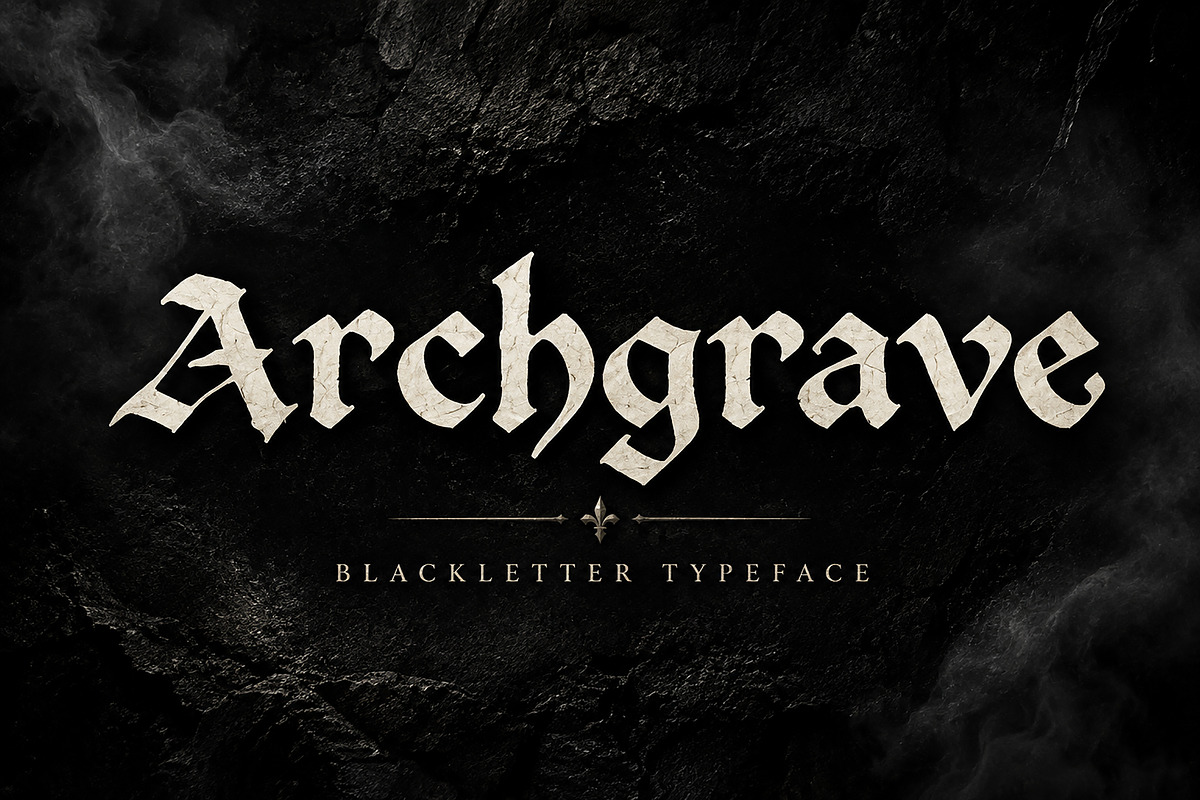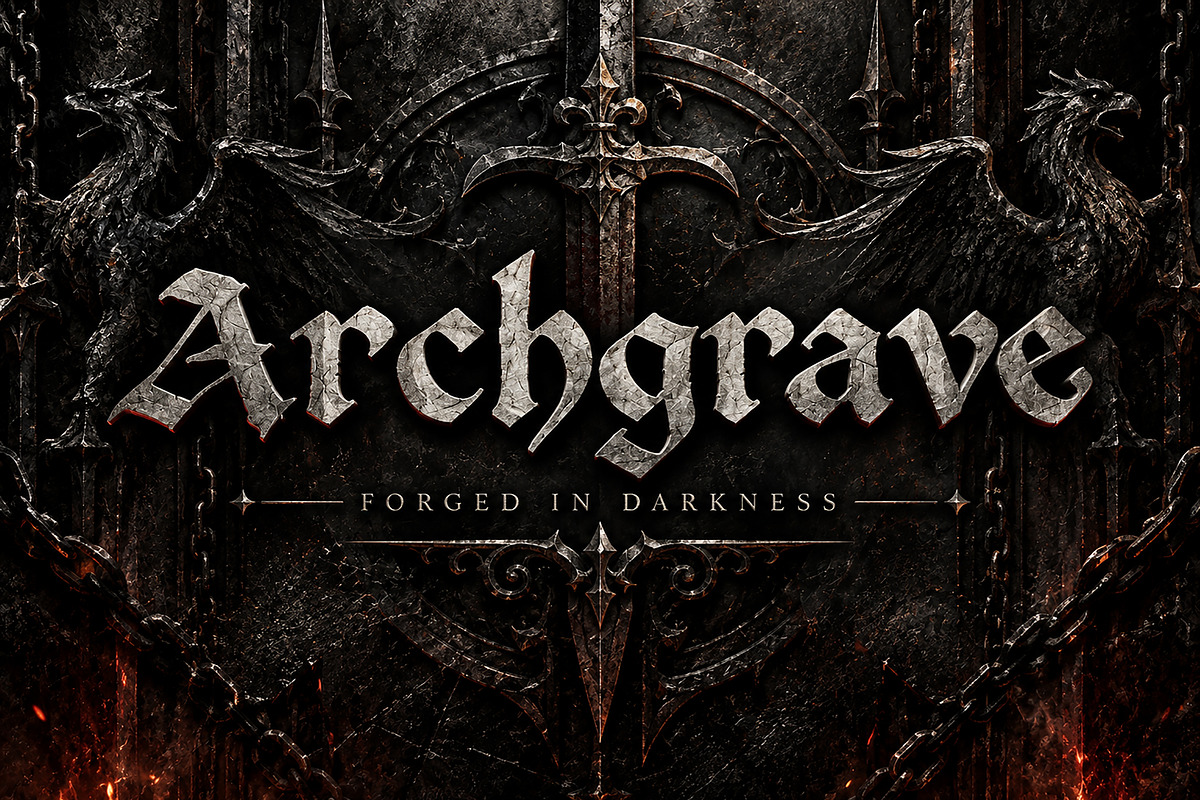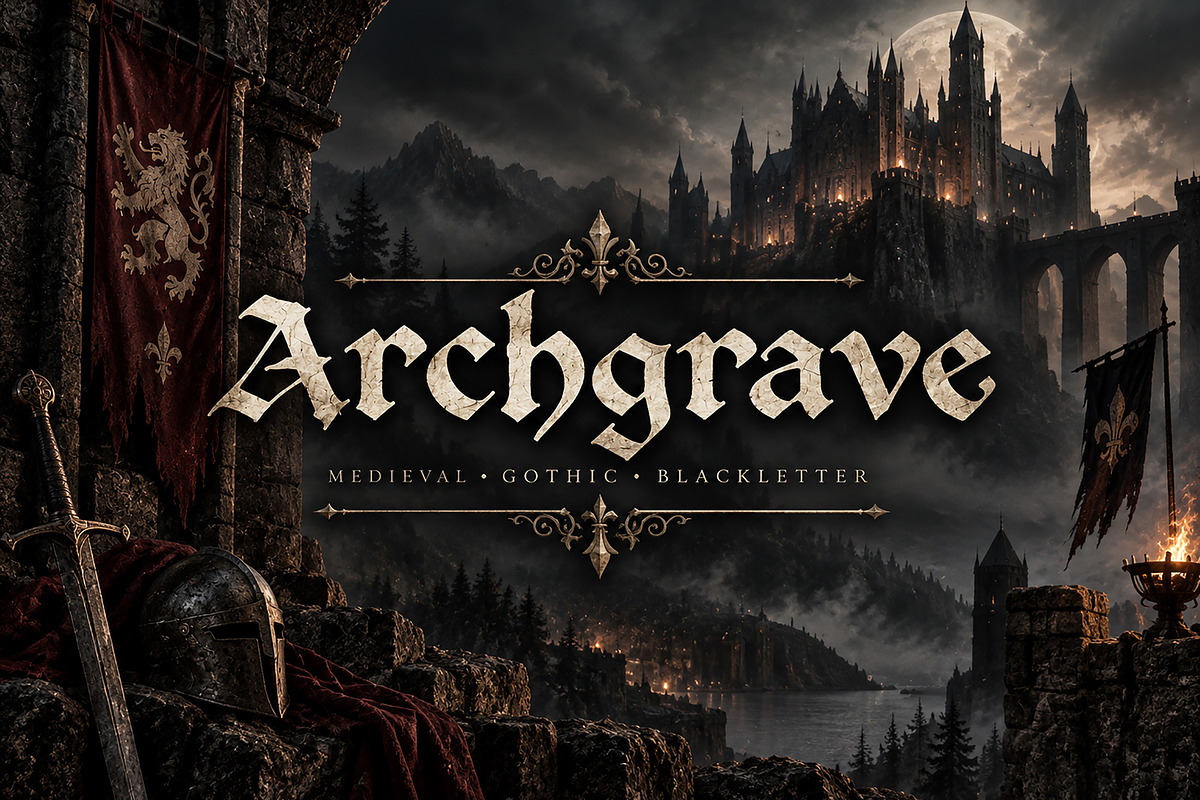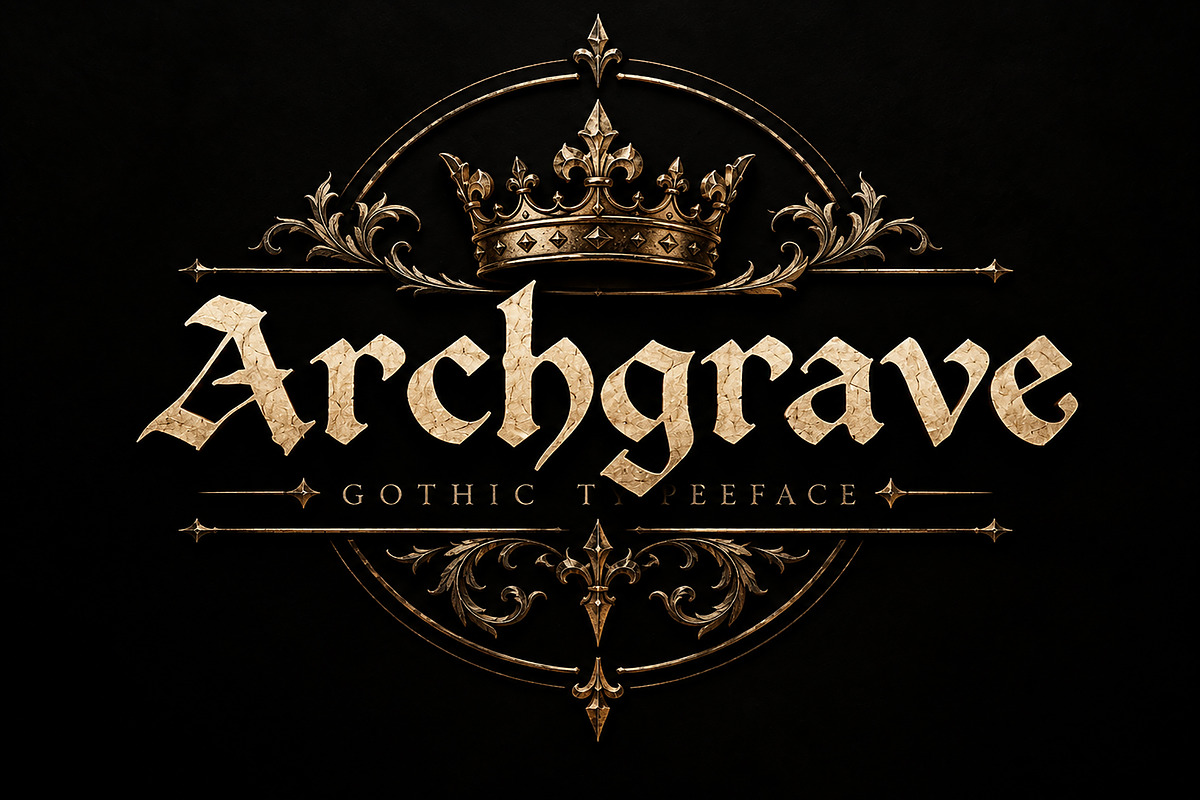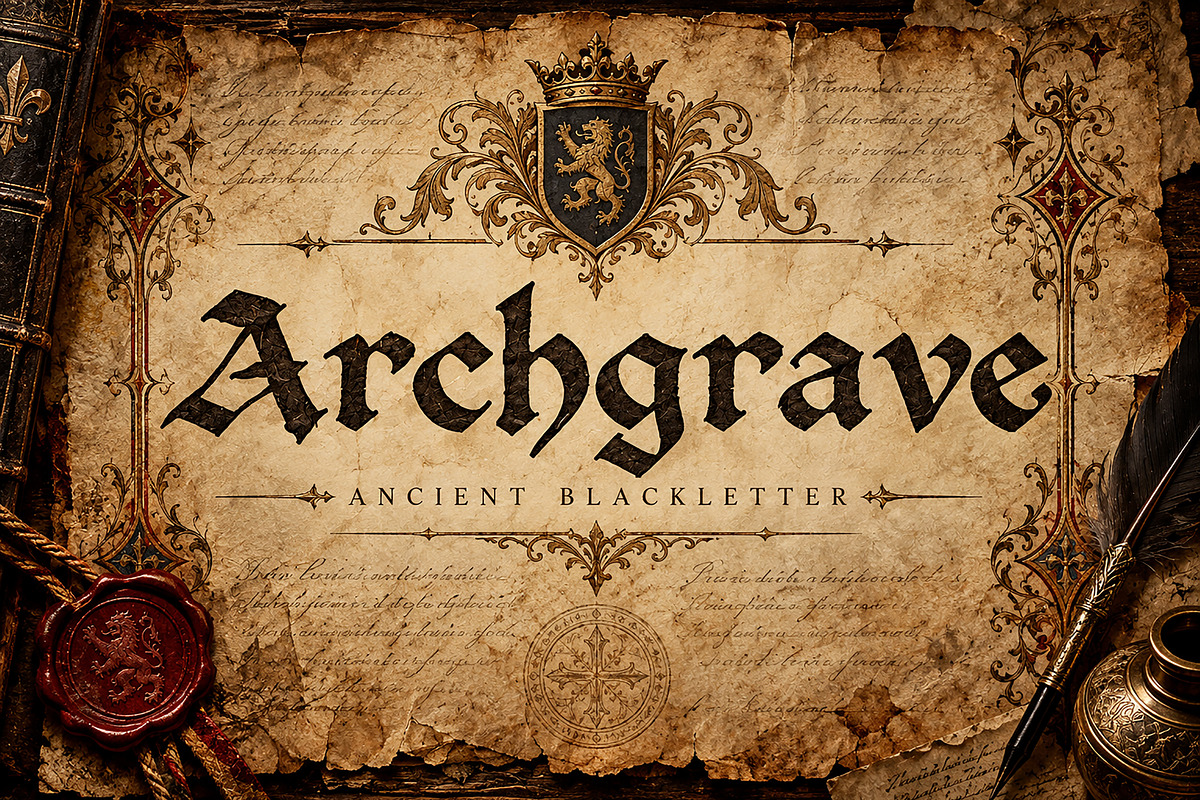
Archgrave Blackletter
Archgrave Blackletter is a powerful medieval-inspired blackletter display font designed to bring a dark, dramatic, and timeless character to your creative projects. With its sharp gothic forms, bold presence, and distinctive ornamental letter shapes, Archgrave is perfect for designs that need a strong medieval, gothic, or fantasy atmosphere.
This typeface works beautifully for logos, branding, posters, album artwork, book covers, game titles, medieval designs, gothic branding, apparel, tattoos, invitations, labels, packaging, and other high-impact display designs.
Whether you're creating a mysterious gothic identity, a medieval fantasy title, or a bold dark-themed brand, Archgrave Blackletter adds an authentic and memorable visual character.
Medieval-inspired Blackletter / Gothic style
Bold and dramatic display lettering
Ideal for logos and branding
Great for posters and headlines
Perfect for fantasy and medieval-themed designs
Suitable for apparel, packaging, covers, and artwork